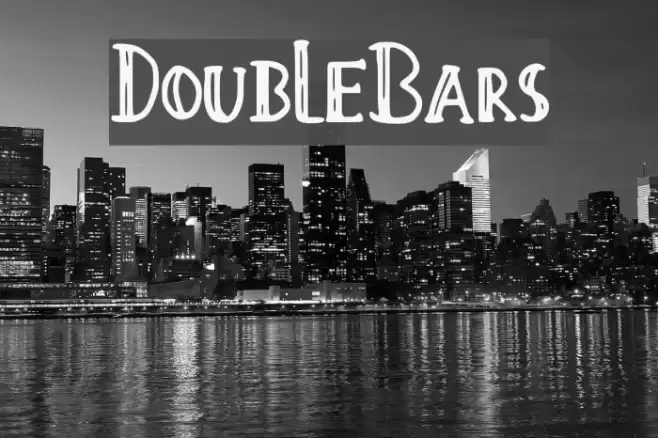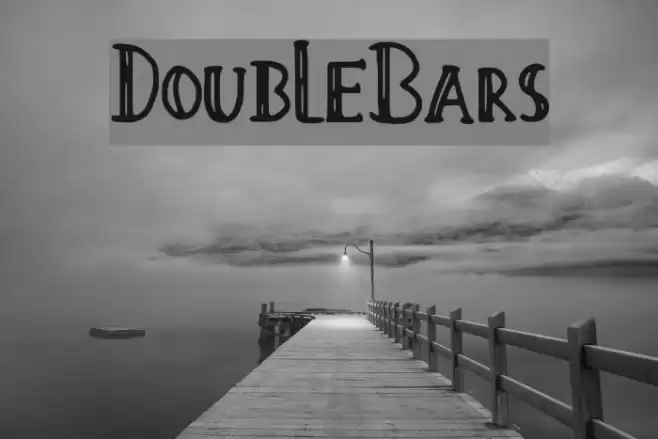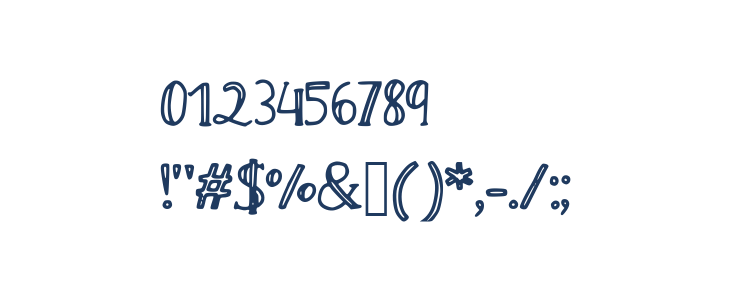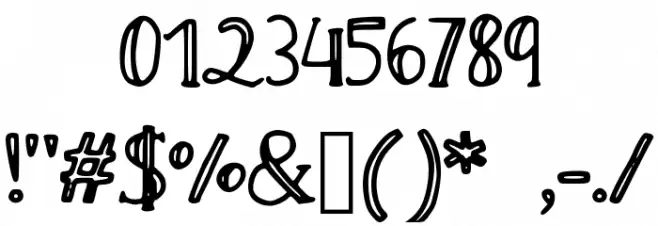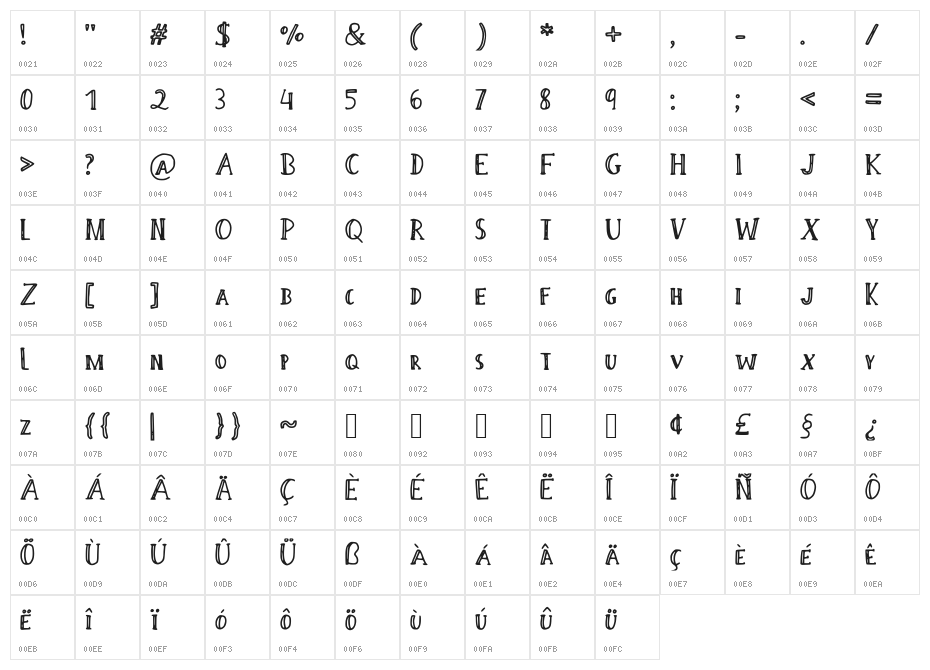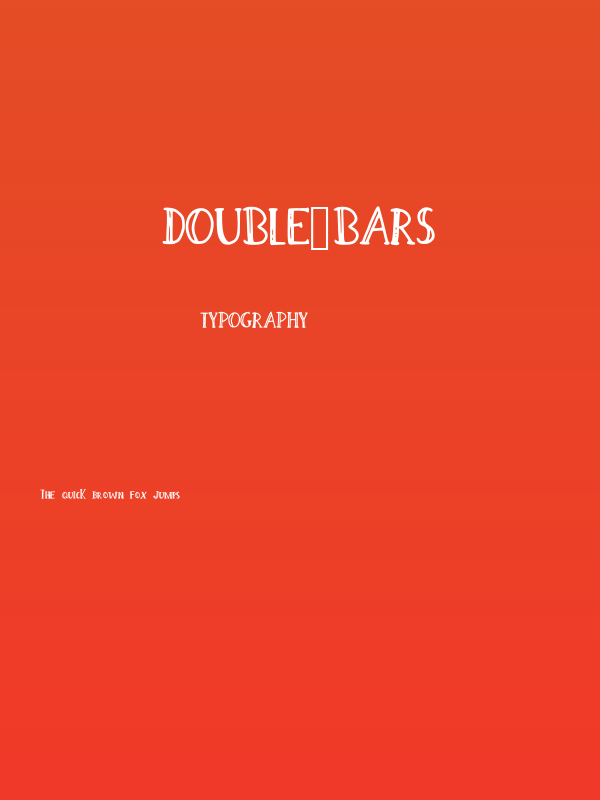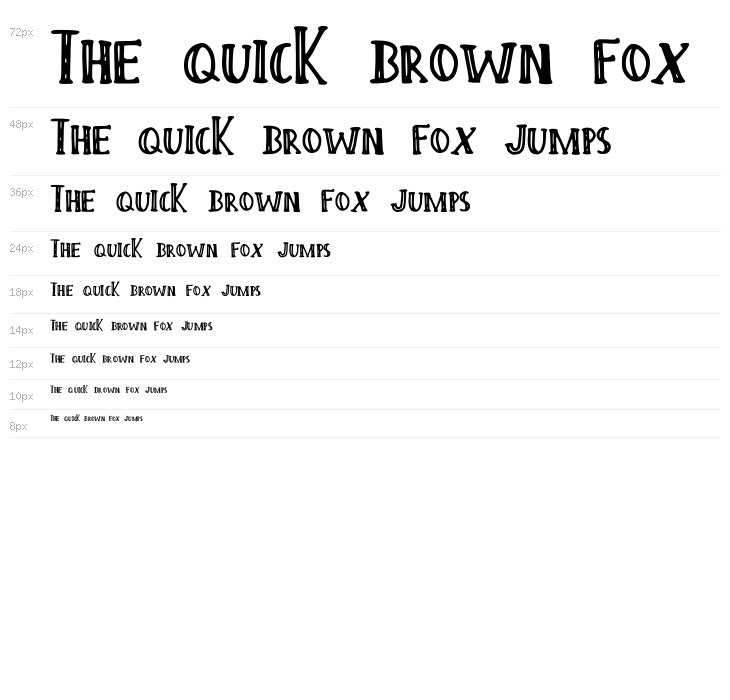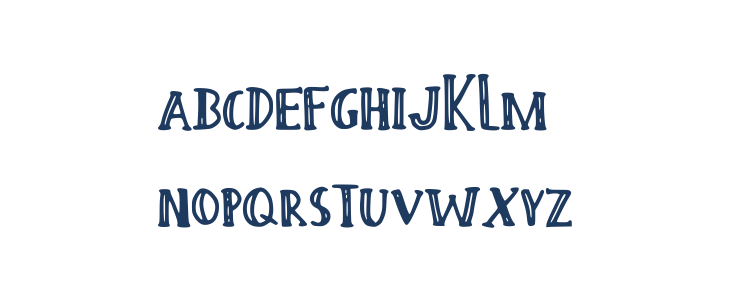
This font features a unique and playful design with double vertical lines running through each character, giving it a distinctive and eye-catching appearance. The letters are bold and slightly condensed, with a whimsical touch that adds character to any text. The uppercase and lowercase letters maintain a consistent style, while the numerals and special characters are crafted to match the overall aesthetic. The font's decorative elements make it ideal for creative projects that require a fun and engaging look.
A playful, bold font with double vertical lines for a whimsical touch from Uncategorized fonts.
- Proposed Projects: Ideal for children's books, playful branding, party invitations, and creative posters.